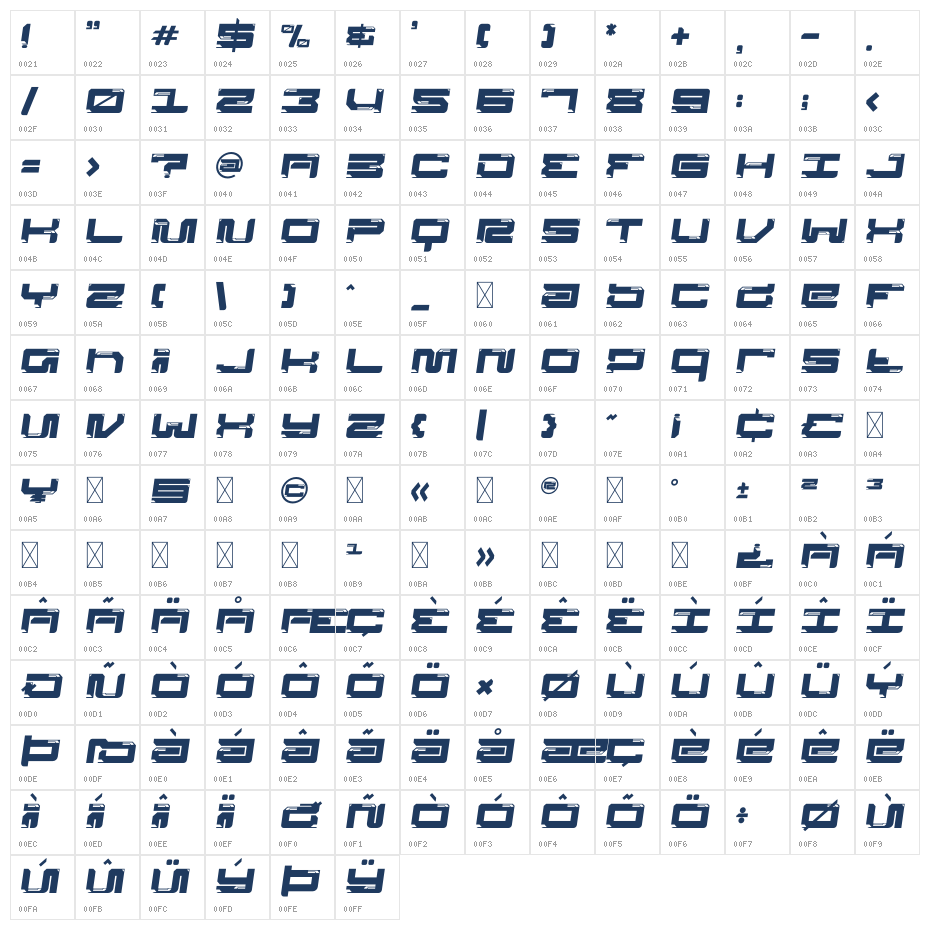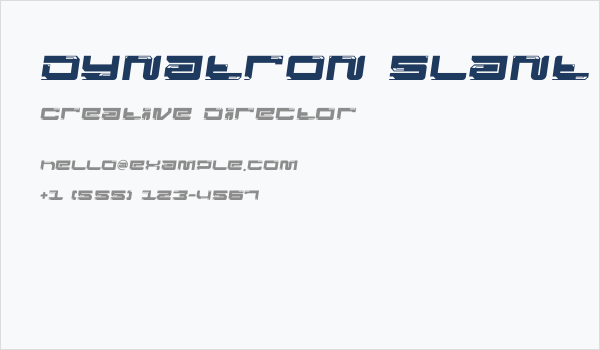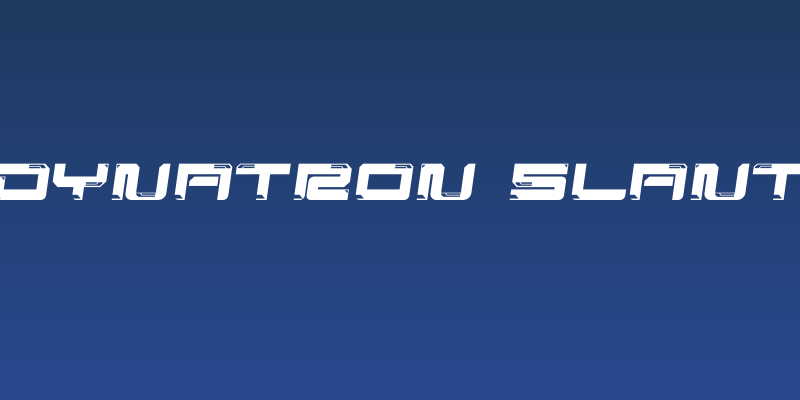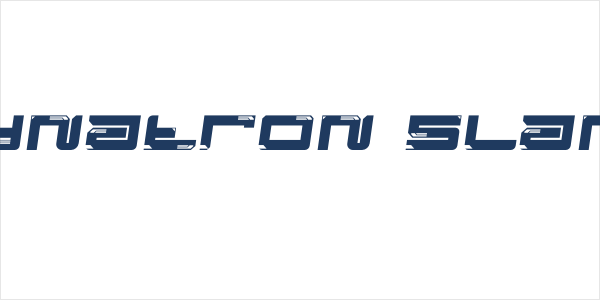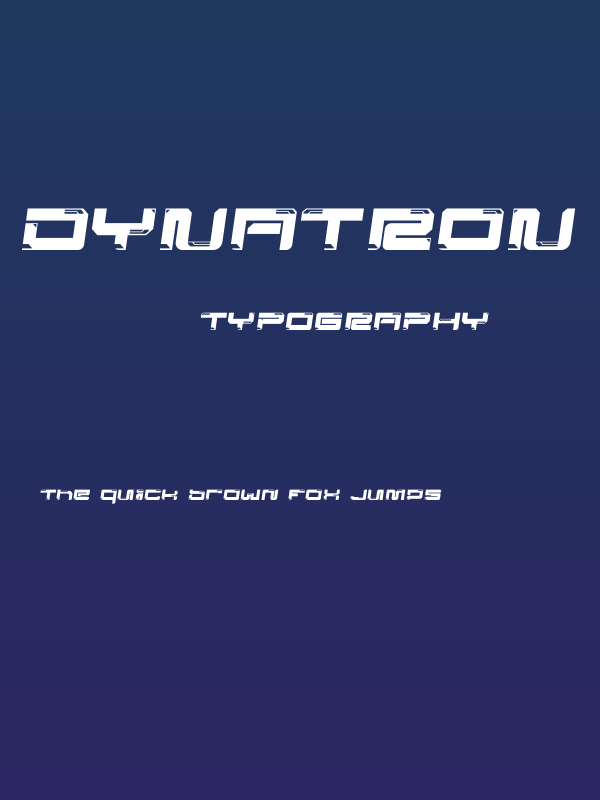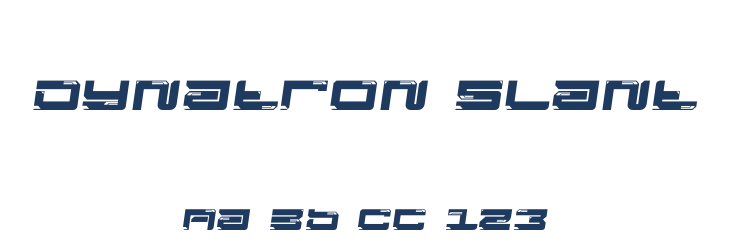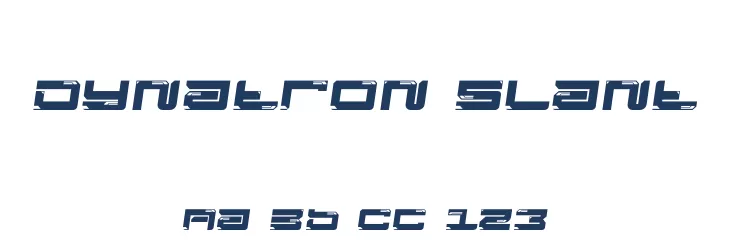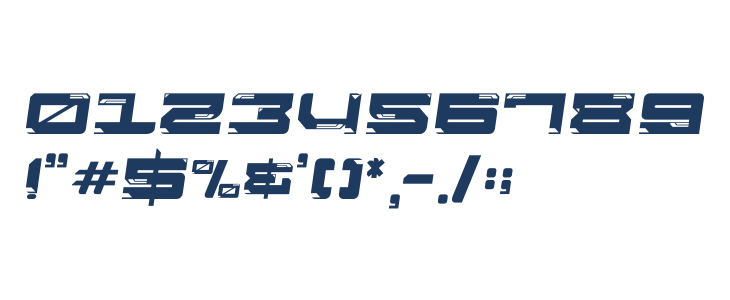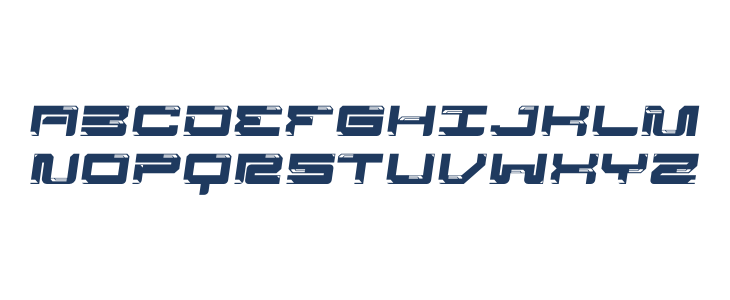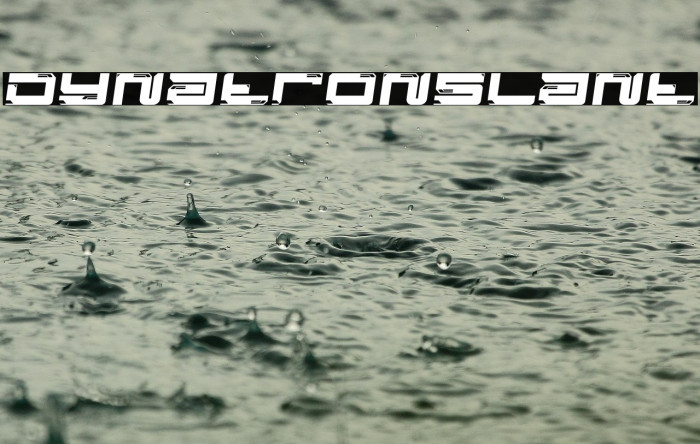
Dynatron Slant Font
Dynatron Slant Description
A futuristic, digital-style font with a bold, angular design and a slightly distressed appearance.
DYNATRON-SLANT UPPERCASE
DYNATRON-SLANT LOWERCASE
DYNATRON-SLANT OTHER CHARS
| Overall Style | Futuristic, Tech-inspired |
| Use Case | Headlines, Logos, Titles, Digital interfaces |